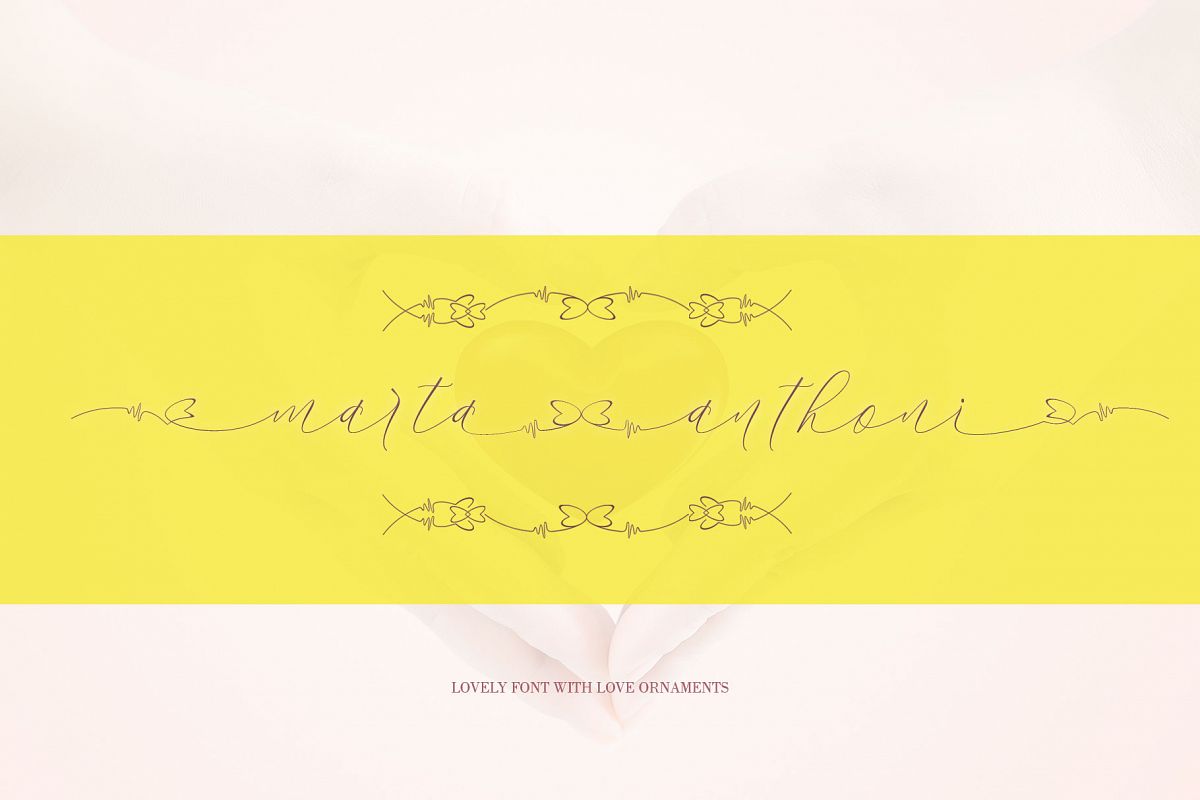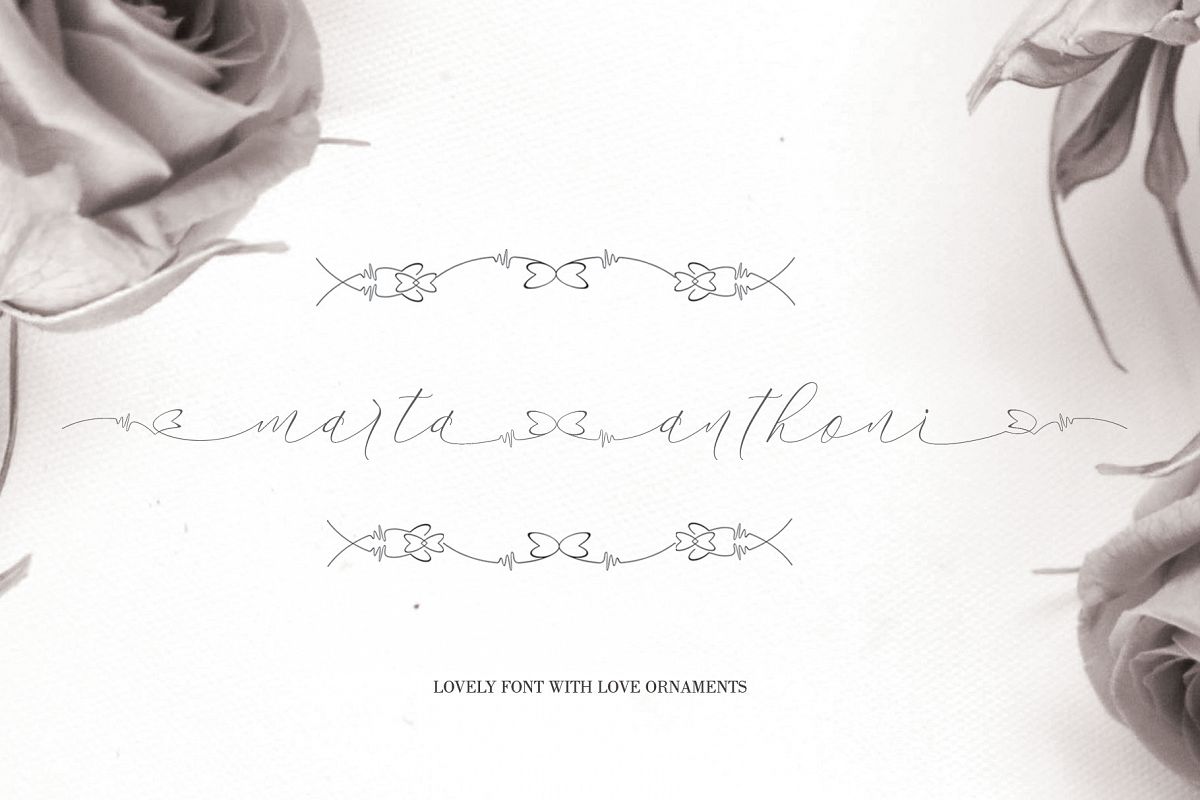
marta anthoni
Fatigue paid off with satisfying results !!! Marta antoni fonts drain a lot of time and mind in realizing a satisfying work, which is in accordance with some ideas in determining the desires of designers who need a lot of new things in making their craft in any form that can be adjusted with a different swash on each their work, and this has been realized in a simple font character lovely but there are many swahs that can adapt to the needs of the craft they are working on, and this has been realized in a lovely font, the marta anthoni font.
With some interesting initial and final forms, marta anthoni fonts. according to your needs in making logos, invitations, cards, product packaging, headers, and whatever you want.
You will be very satisfied with the presence of attractive replacement letters, where you can make according to the shape you expect, Vineshia tu Jonhson font comes with a number of small letters including swash that you can use to realize a hand job that suits your imagination.
Font martha anthoni complete with some lovely ornaments to support your work which I present in AI format (adobe illustrator) and in regular font martha anthoni ornaments.